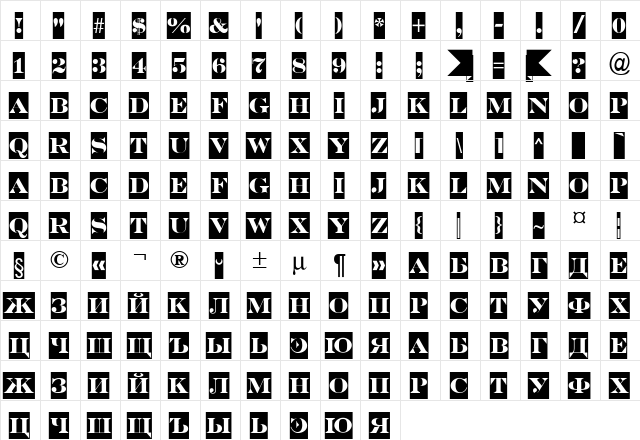
a_SeriferTitulSl Bold
Design Context for a_SeriferTitulSl Typeface
a_SeriferTitulSl carries the refined structure of traditional serif typography, with bracketed terminals and considered proportions that communicate credibility and craft. The heavy weight commands attention and anchors typographic hierarchies.
Pro Tip: Use a_SeriferTitulSl for editorial body copy and considered headline work. Pair with a neutral sans for UI elements or captions to create a classic hierarchy.